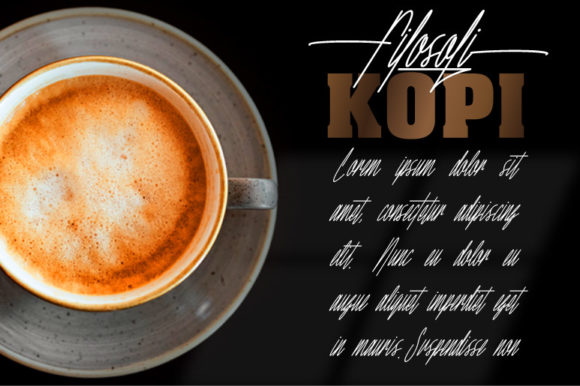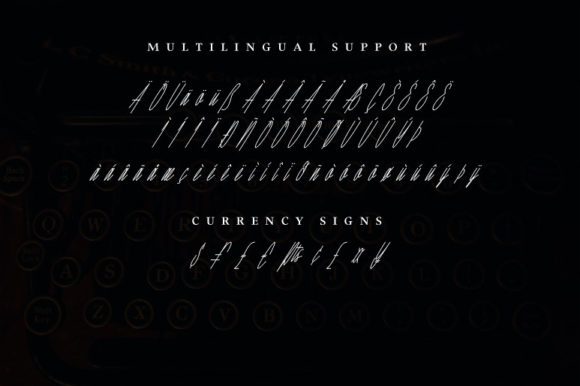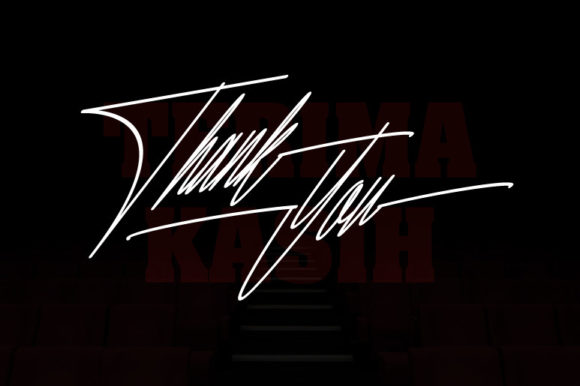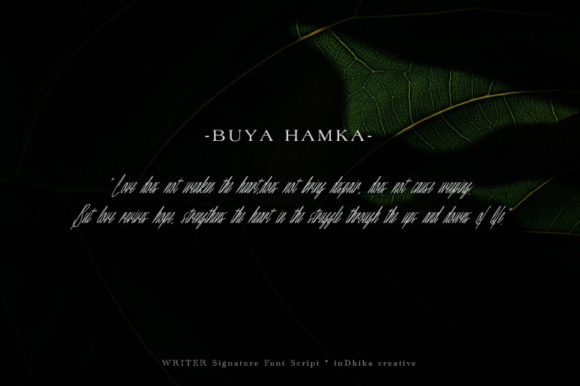
About Writer Font
Writer is a thin lettered, flowing and delicate script font. It is PUA encoded which means you can access all of the glyphs and swashes with ease!